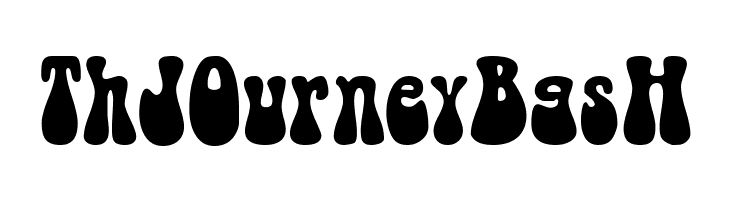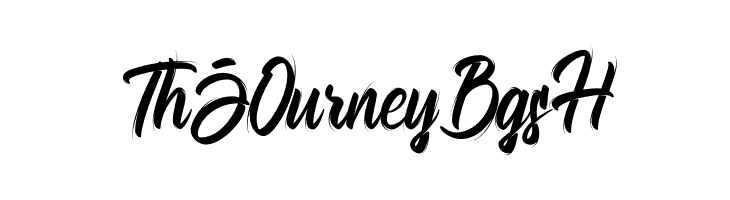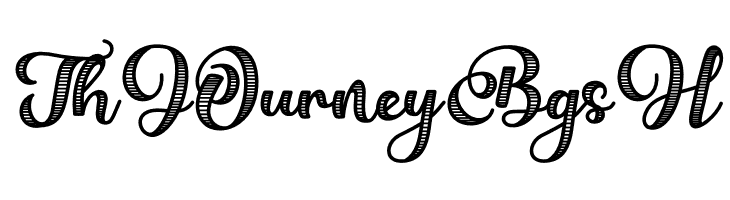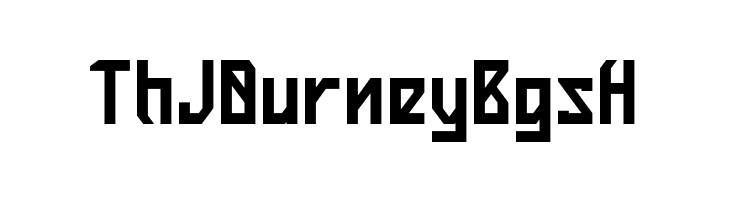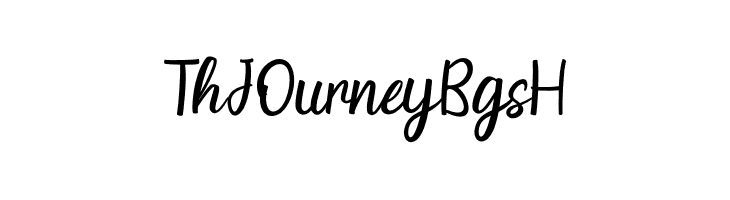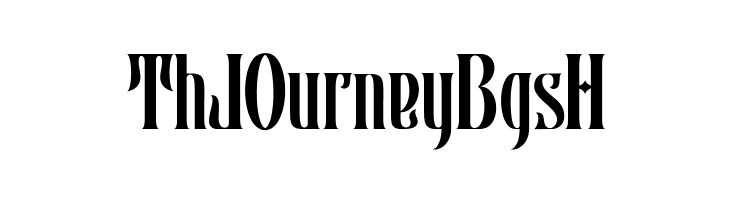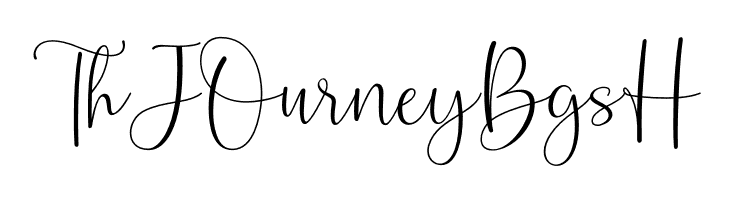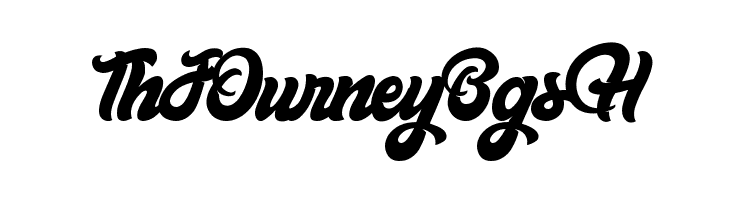
A playful, modern font with rounded and angular elements.
An elegant, decorative script font with intricate line work and flowing curves.
A dynamic brush-style font with expressive, fluid strokes and high contrast.
A bold, high-contrast decorative font with elegant and dramatic styling.
A modern, elegant script font with flowing, cursive strokes.
A bold, playful font with bubbly, exaggerated curves and a retro vibe.
A playful and flowing script font with smooth, connected strokes.
A bold, flowing script font with elegant curves and connected characters.
A dynamic and expressive handwritten font with fluid, flowing letterforms.